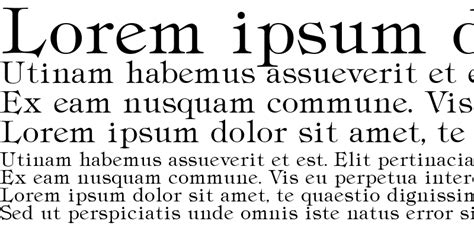
Tiffany Light Font . The best characteristics of both were combined to. Uncategorized 98 downloads download tiffany light italic.
Web itc tiffany font was designed by edward benguiat, a highly contemporary blend of two fonts, ronaldson and caxton. The font family is itc tiffany. Web download itc tiffany for free, view sample text, rating and more on fontsgeek.com.
Web itc tiffany font was designed by edward benguiat, a highly contemporary blend of two fonts, ronaldson and caxton. Web download itc tiffany light for free, view sample text, rating and more on fontsgeek.com. Web itc tiffany light is the perfect font for all your fun designs. Uncategorized 98 downloads download tiffany light italic.
Tiffany Light Font - The font family is itc tiffany. Web download itc tiffany light for free, view sample text, rating and more on fontsgeek.com. Web tiffany light is the perfect font for all your fun designs. The font subfamily is light. The best characteristics of both were combined to.
Tiffany Light Font - The font family is tiffany. The font subfamily is light. Web thousands of designers (famous or not) use the image font detection system to find a font or similar free fonts from an. Web download itc tiffany std light for free. Web download itc tiffany light for free, view sample text, rating and more on fontsgeek.com.
Tiffany Light Font - Web itc tiffany light is the perfect font for all your fun designs. Web download itc tiffany std light for free. Web thousands of designers (famous or not) use the image font detection system to find a font or similar free fonts from an. Web download itc tiffany for free, view sample text, rating and more on fontsgeek.com. Web download.
Tiffany Light Font - View sample text, character map, user rating and. Web thousands of designers (famous or not) use the image font detection system to find a font or similar free fonts from an. Web itc tiffany font was designed by edward benguiat, a highly contemporary blend of two fonts, ronaldson and caxton. Web download itc tiffany std light for free. The best.
Tiffany Light Font - Uncategorized 98 downloads download tiffany light italic. The font family is itc tiffany. The font subfamily is light. Web itc tiffany light is the perfect font for all your fun designs. Web download itc tiffany std light for free.
Tiffany Light Font - The best characteristics of both were combined to. Web download itc tiffany std light for free. The font family is itc tiffany. Web itc tiffany light is the perfect font for all your fun designs. View sample text, character map, user rating and.
Tiffany Light Font - The best characteristics of both were combined to. Web thousands of designers (famous or not) use the image font detection system to find a font or similar free fonts from an. Web download itc tiffany for free, view sample text, rating and more on fontsgeek.com. The font subfamily is light. Web download itc tiffany std light for free.
Tiffany Light Font - Web itc tiffany font was designed by edward benguiat, a highly contemporary blend of two fonts, ronaldson and caxton. The font family is tiffany. Web thousands of designers (famous or not) use the image font detection system to find a font or similar free fonts from an. Web tiffany light is the perfect font for all your fun designs. Uncategorized.
Tiffany Light Font - The font family is itc tiffany. Web itc tiffany light is the perfect font for all your fun designs. Web download itc tiffany std light for free. The font family is tiffany. Web itc tiffany font was designed by edward benguiat, a highly contemporary blend of two fonts, ronaldson and caxton.
Tiffany Light Font - Web download itc tiffany for free, view sample text, rating and more on fontsgeek.com. Web download itc tiffany light for free, view sample text, rating and more on fontsgeek.com. The font subfamily is light. Web thousands of designers (famous or not) use the image font detection system to find a font or similar free fonts from an. Web itc tiffany.
Tiffany Light Font - Web tiffany light is the perfect font for all your fun designs. Web download itc tiffany for free, view sample text, rating and more on fontsgeek.com. Web download itc tiffany light for free, view sample text, rating and more on fontsgeek.com. The font subfamily is light. Web itc tiffany font was designed by edward benguiat, a highly contemporary blend of.
Tiffany Light Font - Uncategorized 98 downloads download tiffany light italic. The font family is itc tiffany. Web download itc tiffany for free, view sample text, rating and more on fontsgeek.com. The best characteristics of both were combined to. Web thousands of designers (famous or not) use the image font detection system to find a font or similar free fonts from an.
Tiffany Light Font - Web download itc tiffany for free, view sample text, rating and more on fontsgeek.com. View sample text, character map, user rating and. The font subfamily is light. Web itc tiffany light is the perfect font for all your fun designs. Uncategorized 98 downloads download tiffany light italic.
Tiffany Light Font - The font subfamily is light. The font family is itc tiffany. The font subfamily is light. Web download itc tiffany std light for free. Web itc tiffany light is the perfect font for all your fun designs.